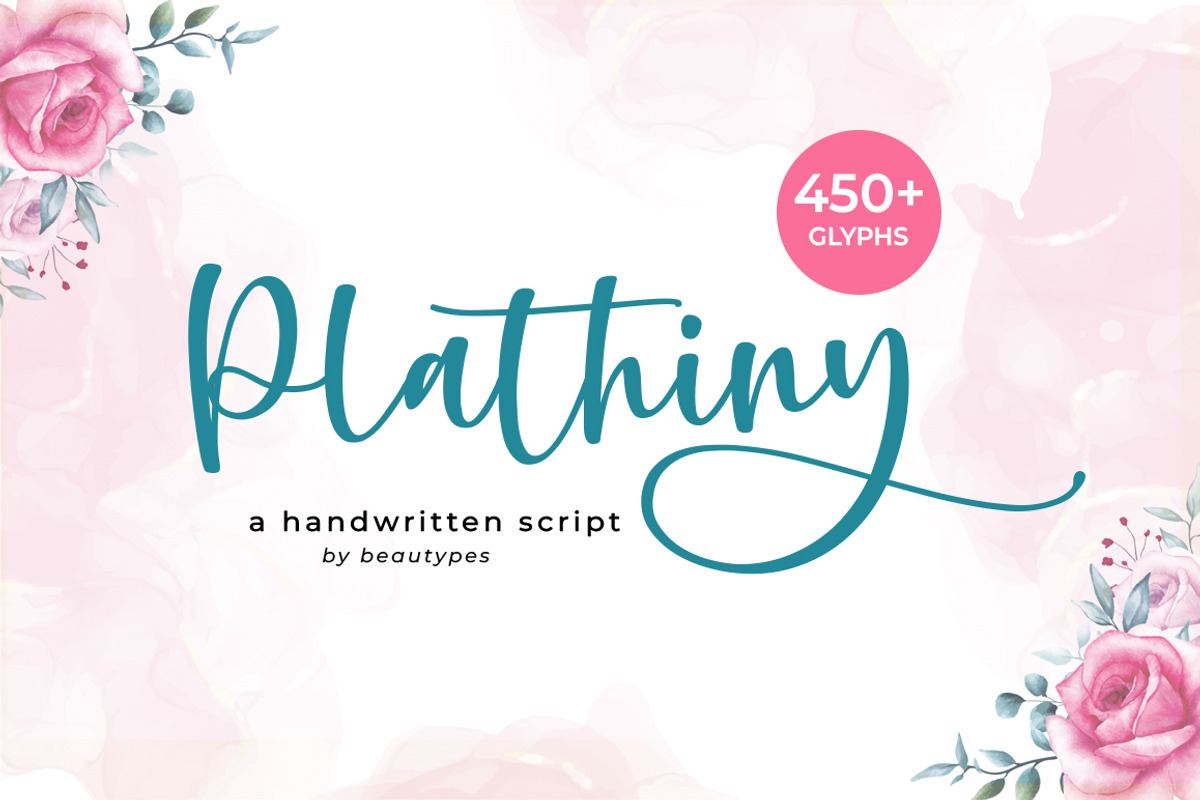
Plathiny - a handwritten script Free Download
Plathiny - A Handwritten Script Font Free Download
Plathiny - A Handwritten Script Font Free Download is an elegant and flowing script typeface that exudes a natural, handwritten charm. With its smooth curves and delicate strokes, this font is perfect for projects that require a personal, artistic touch, such as wedding invitations, logos, branding, greeting cards, and social media graphics.
Plathiny - A Handwritten Script Font Free Download combines sophistication with warmth, making it ideal for both professional and personal designs. Whether you're creating a chic brand identity, a heartfelt message, or a creative design, this font adds a refined yet informal feel.